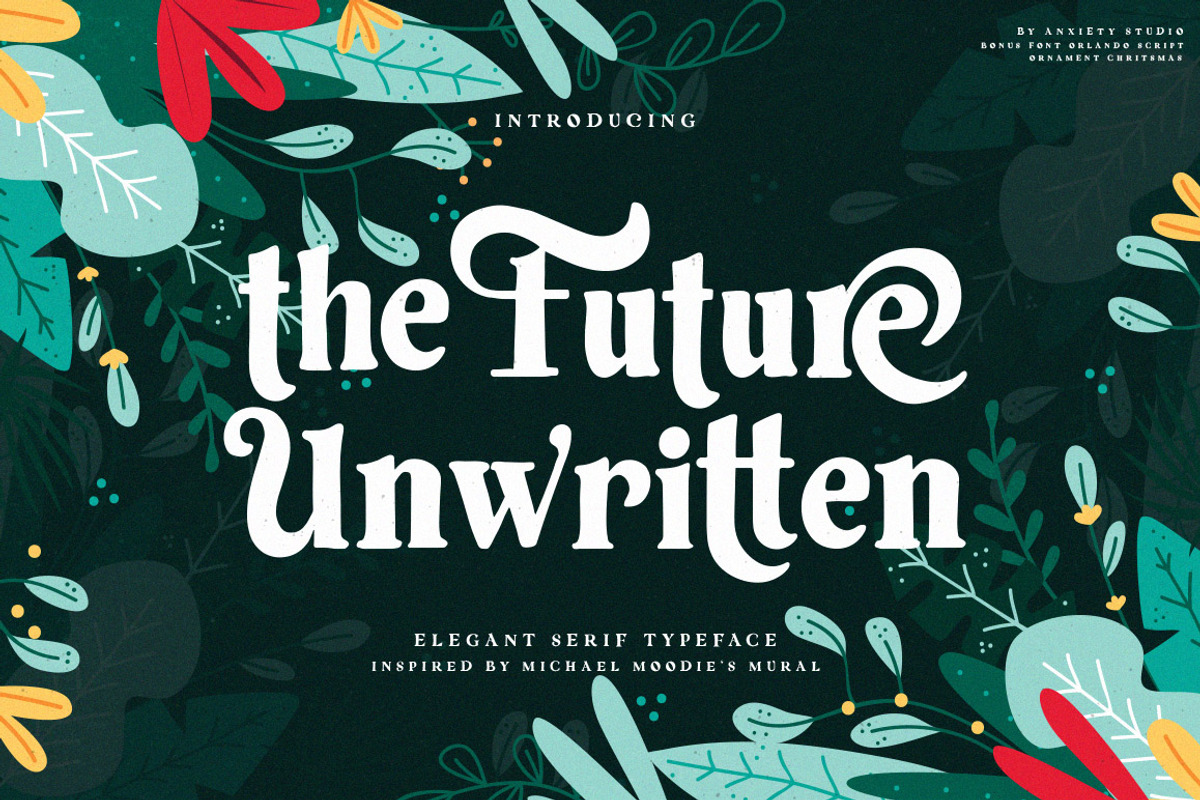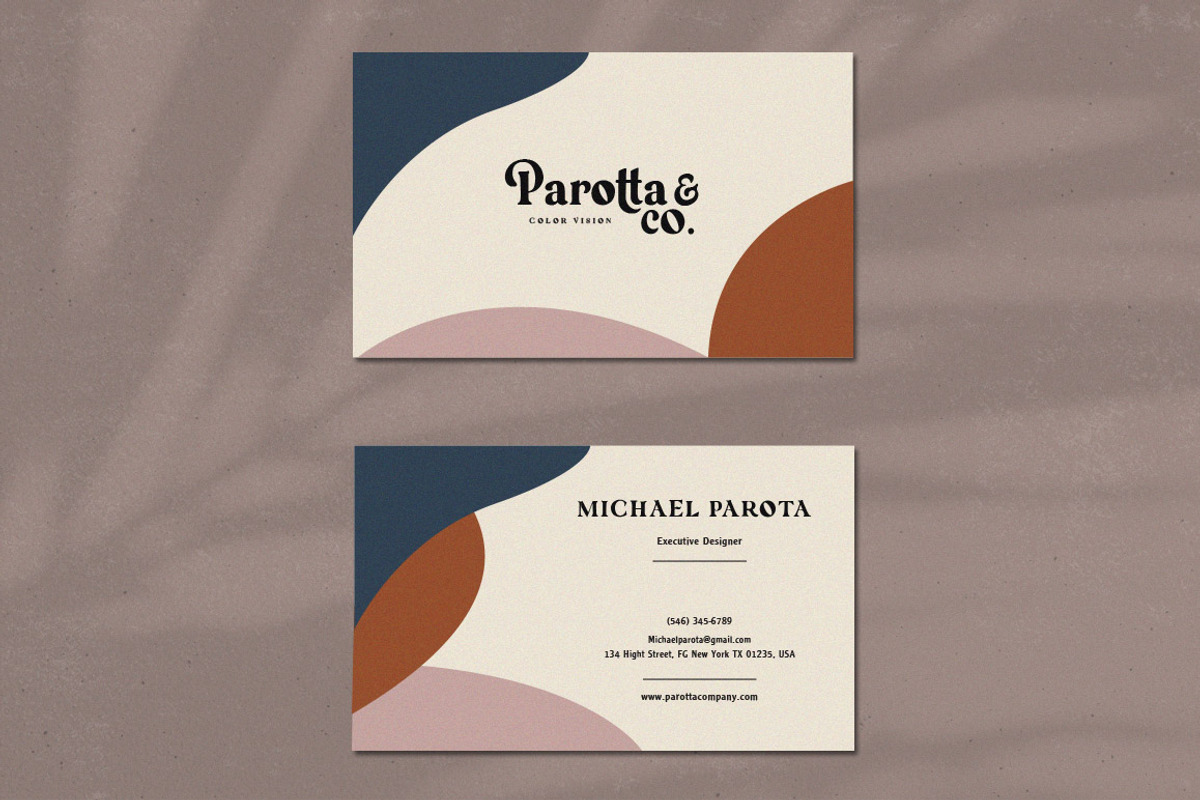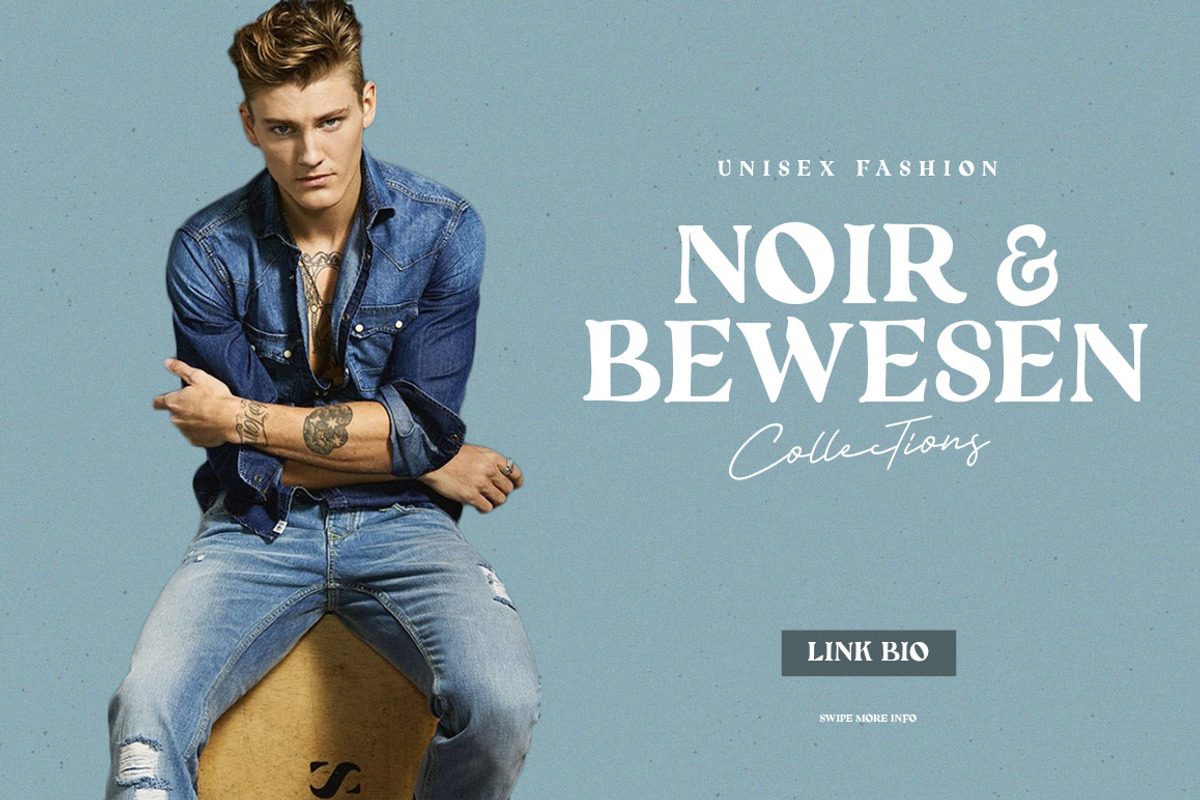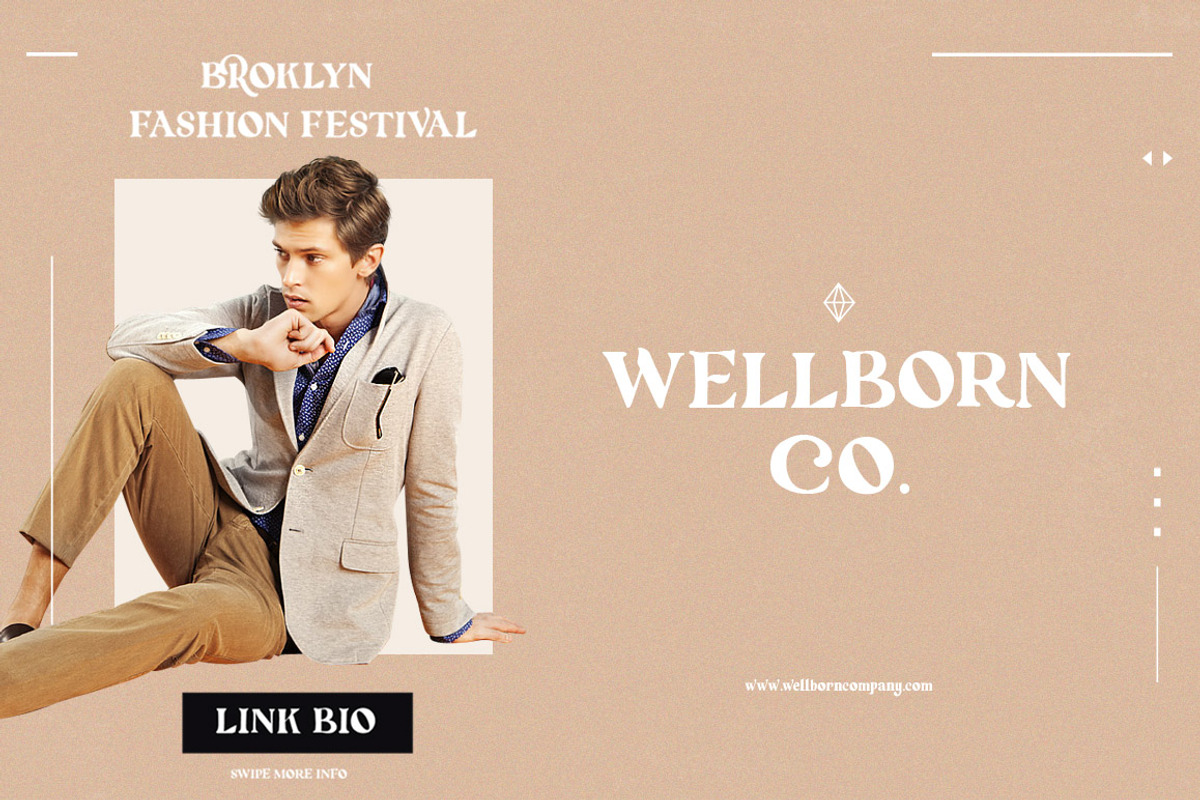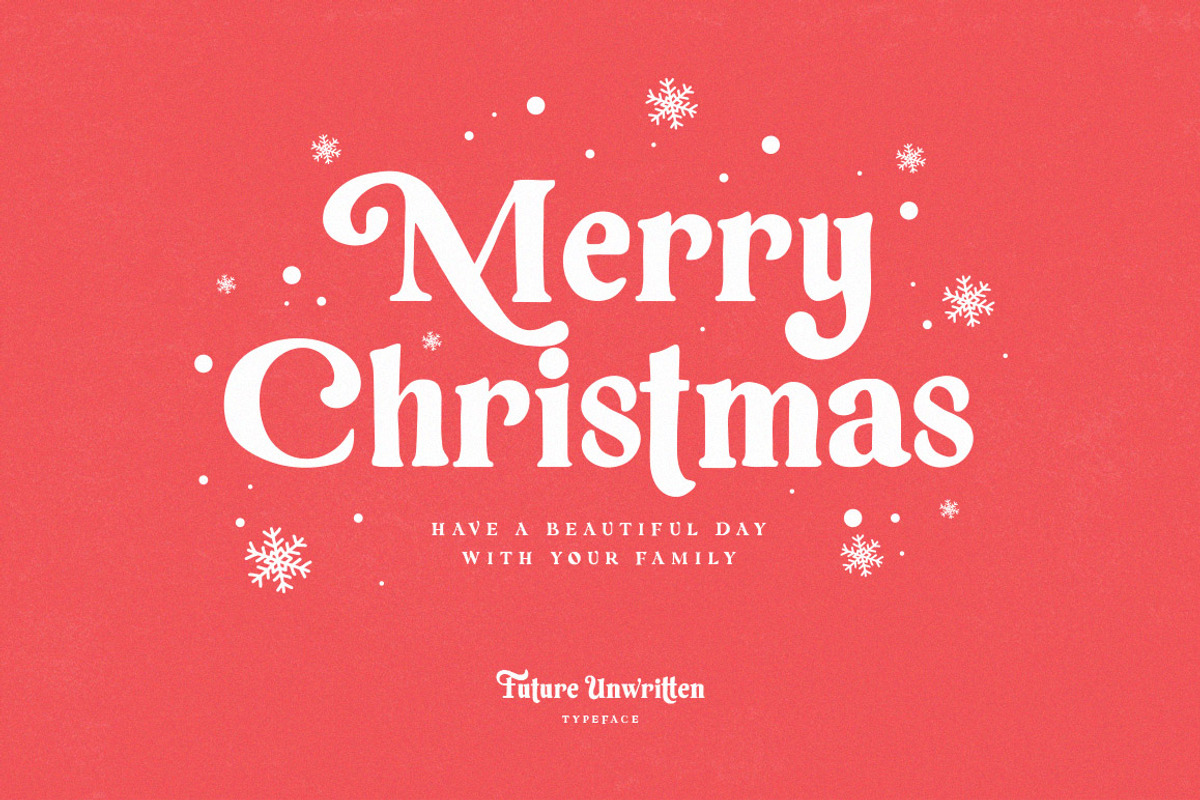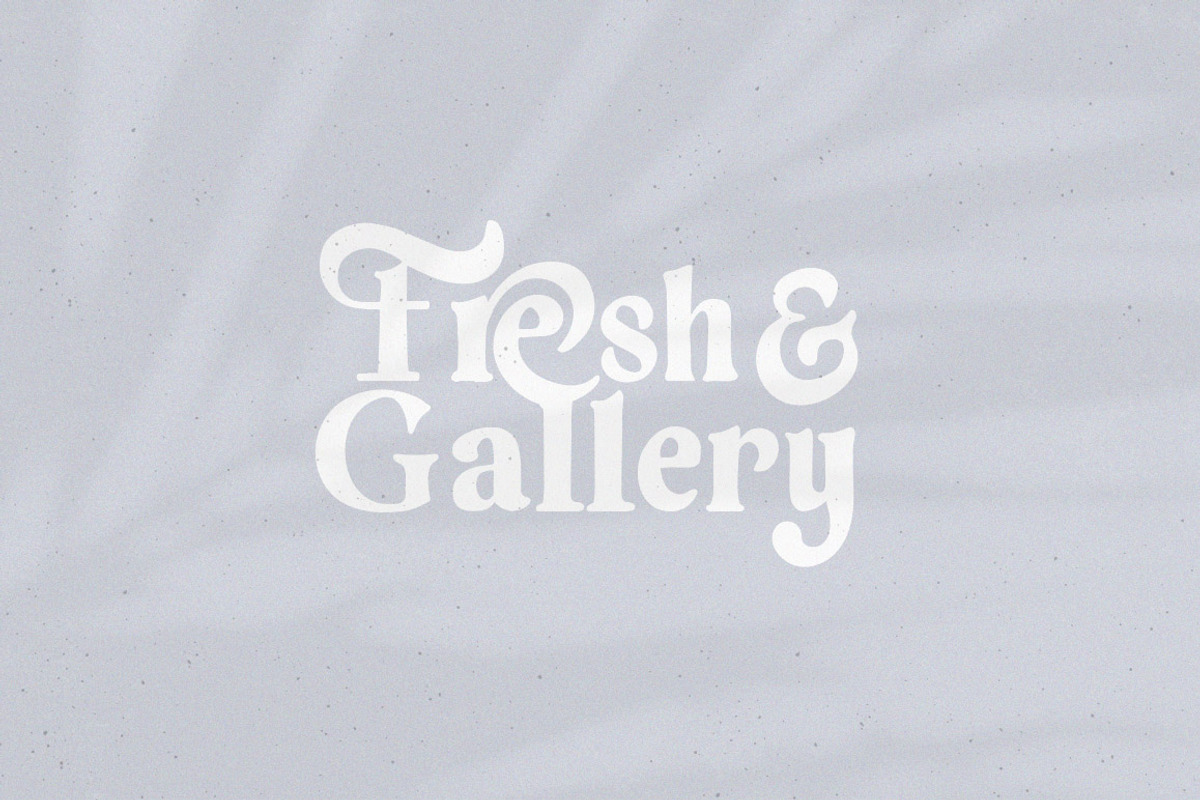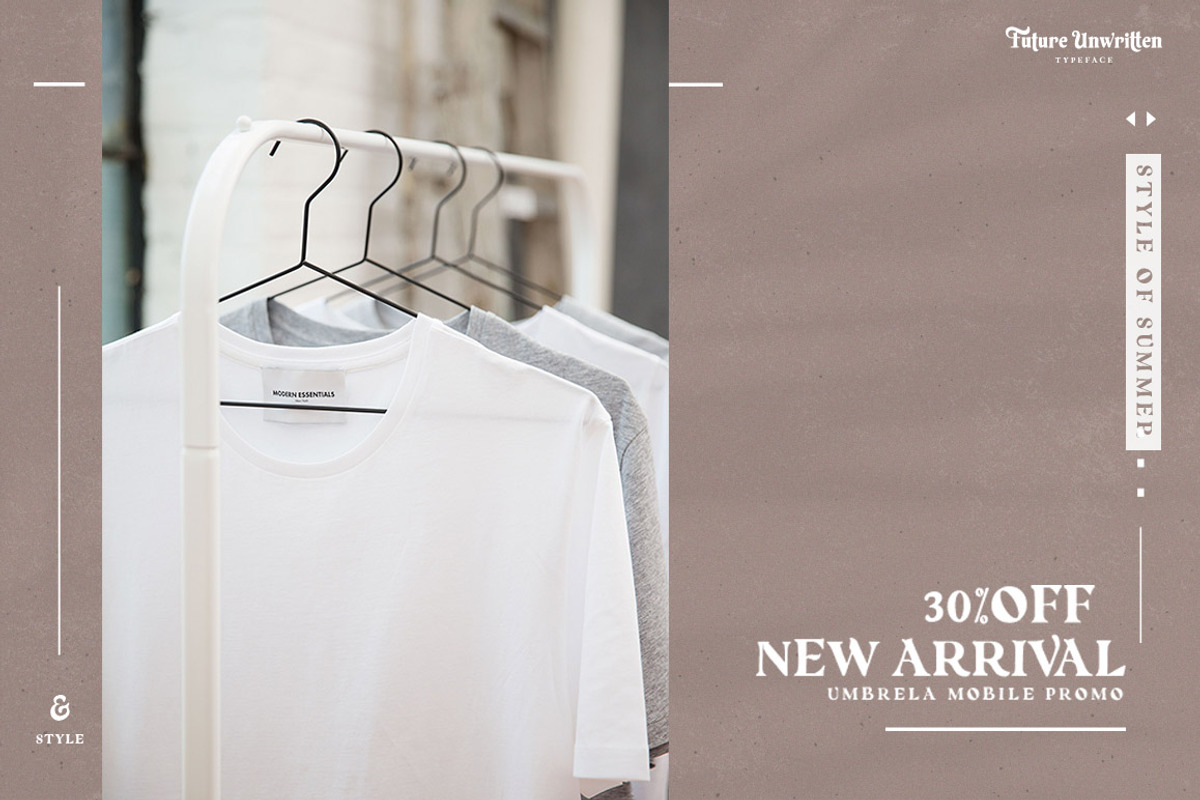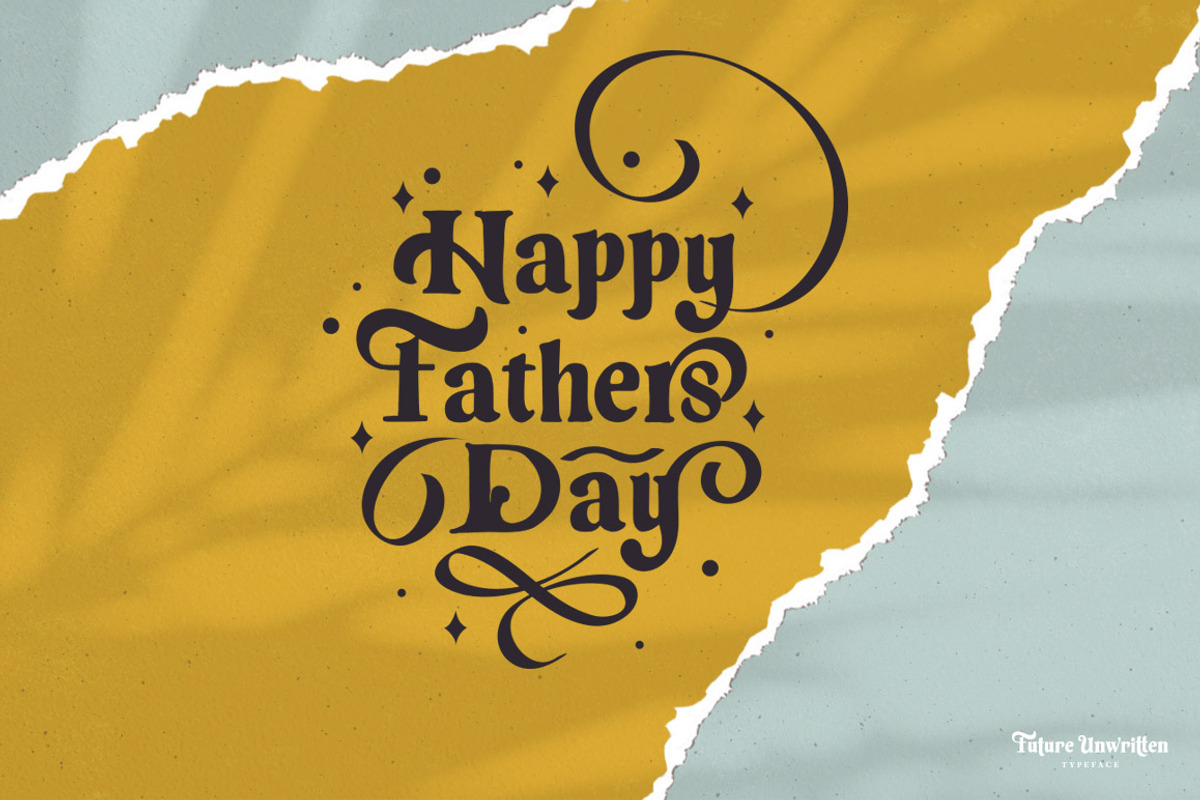
Future Unwritten | Serif (BONUS)
Introducing "Future Unwritten" - Brand new with modern, vintage curves inspired by Michael Moodie
Future Unwritten is a vintage, decorative serif style font, made for modern designs! This serif font is inspired by a mural by Michael Moodie, beautifully crafted to be editorial and convincing, making it a great complement to many designs, resulting in stunning logos, design murals, quotes, wedding invitations, blog posts, Instagram, and more!
A vintage aesthetic in a modern and minimalist way, Future Unwritten includes a complete set of lowercase and uppercase letters with additional alternatives and binders that make the letters more elegant, and with the bonus of an Orlando script font.